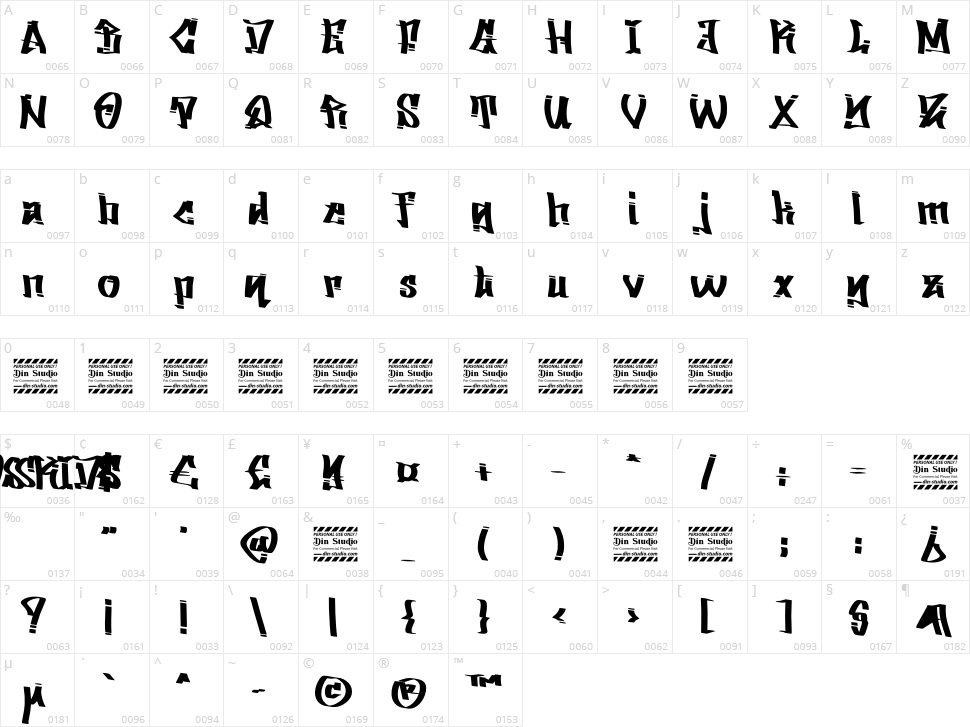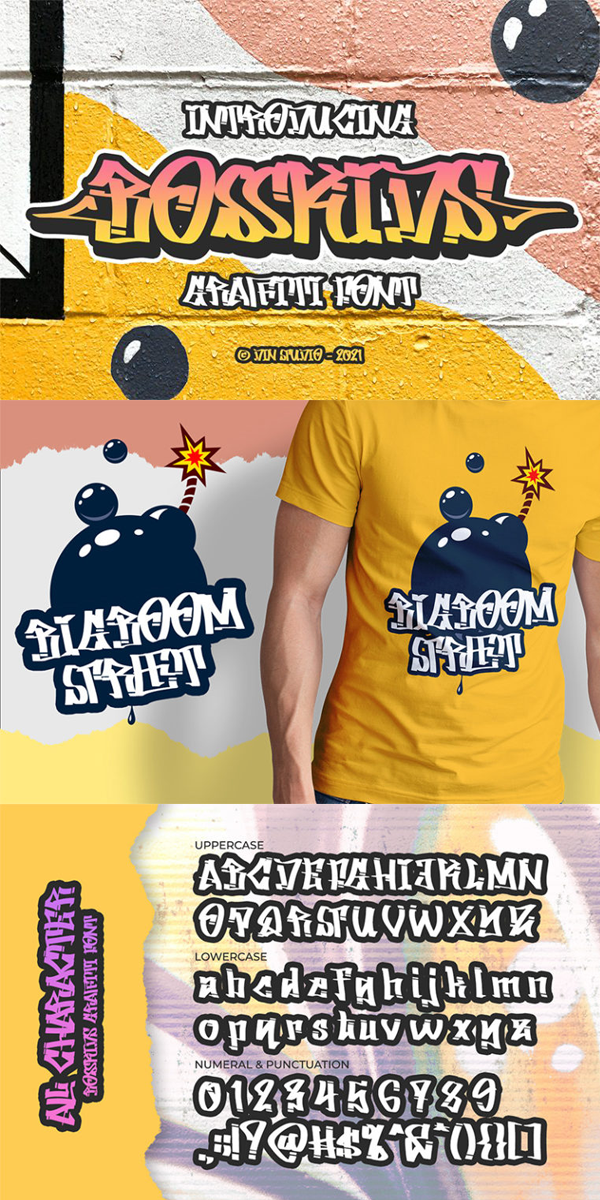
Bosskids
Introducing Bosskids- A Grafiti Font
This gorgeous, stylish and artistic font can be used for a host of different content needs and projects. Make your graffiti text dance with this wonderful, rhythmic font that captures motion and is bound to call attention wherever you use it. Use it for your headings, logos, ads, printed quotes, packaging, and even your website or social media branding.